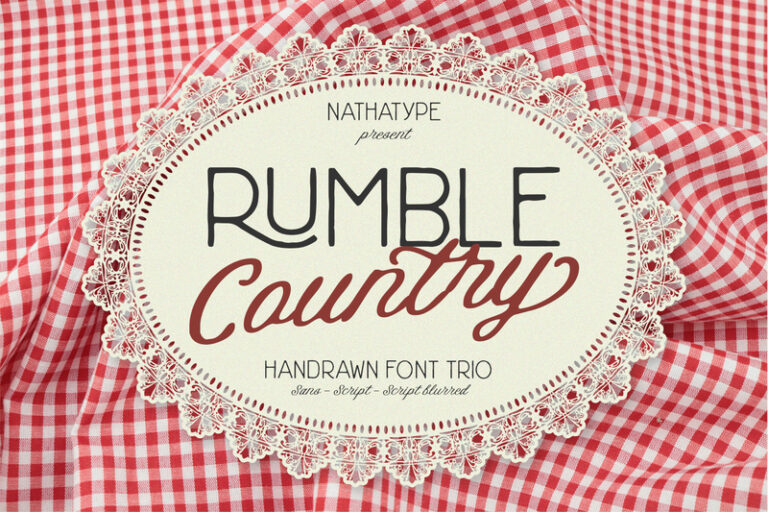
Rumble Country – Handdrawn Font Duo
Rumble Country is a versatile and stylish font trio that combines the clean elegance of a modern sans serif, the nostalgic charm of a vintage script, and a unique script blurred version for added creative depth. The sans serif font in Rumble Country is crafted with a thin weight and a modern, minimalist style. This lightweight sans serif provides a strong foundation for contemporary designs, ensuring readability while maintaining a sleek and professional look.
In contrast, the script font brings a vintage-inspired aesthetic with smoothly connected letters that mimic classic hand-lettering. To elevate creativity even further, Rumble Country includes a script blurred version, which adds a soft, diffused effect to the original script style. In addition, enjoy the features here.
Rumble Country fits in invitations, logos, quotes, branding, posters, and many more designs. Find out more ways to use this font by taking a look at the font preview.